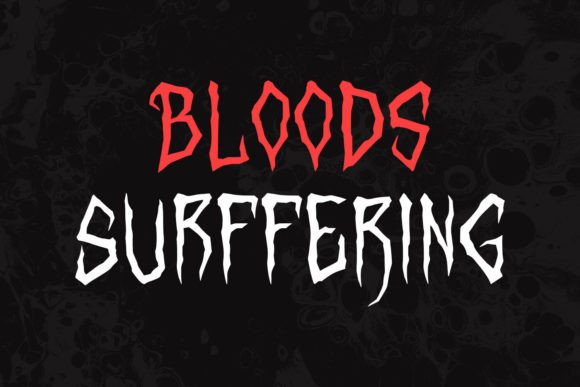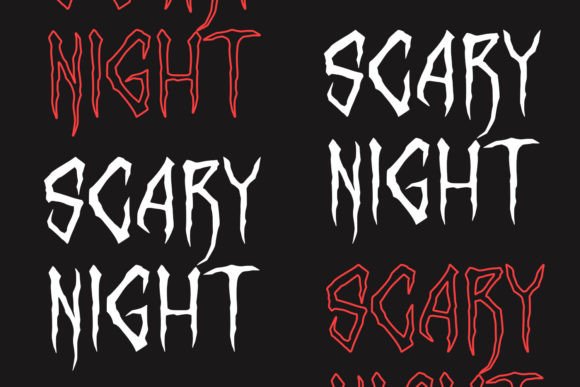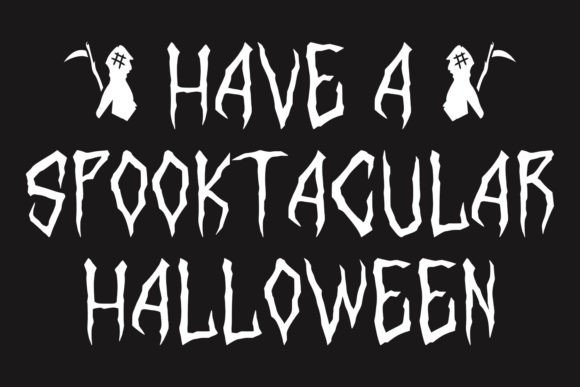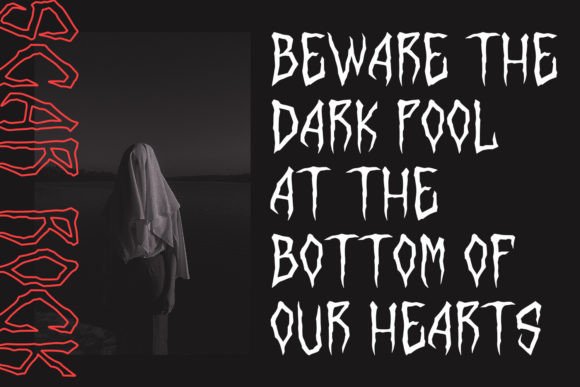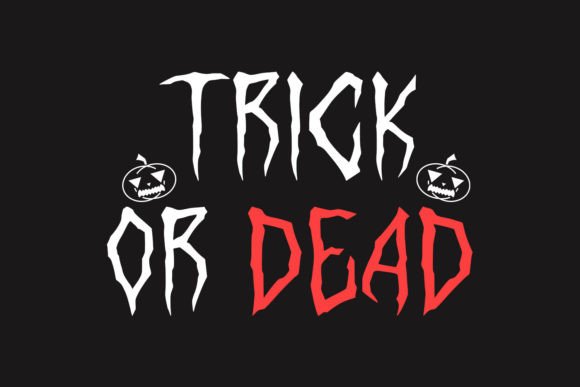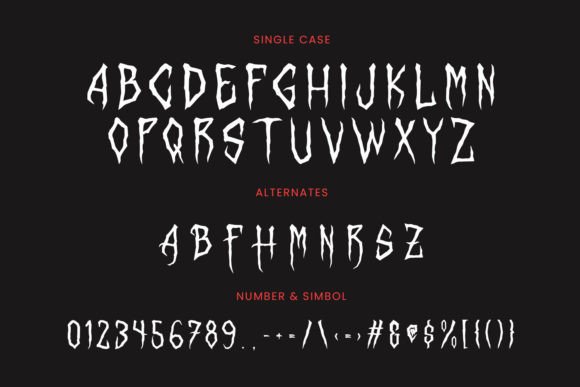
Introduction to Scar Rock Font
Remember that moment when you’re brainstorming ideas for a creative project and the perfect font just slips your mind? You envision a bold, eye-catching title, but the right font to bring it to life remains elusive. That’s where the Scar Rock Font comes in – a heavy-stroke, fun character display font that’s designed to make a statement.
With its unique ligatures and multilingual support for over 100 languages, Scar Rock Font is a valuable addition to any designer’s toolkit. Whether you’re working on a logo design, social media campaign, movie title, or book cover, this high-quality font is sure to elevate your creative work. And the best part? It’s available for free download, making it an accessible design resource for anyone looking to take their projects to the next level.
Whether you’re working on a short text or a long-form letter, Scar Rock Font’s versatility makes it an ideal choice for secondary text fonts with script or serif styles. With its transparent background and bold design, this font is sure to make your creative work stand out from the crowd.
Key Features of Scar Rock Font
- High-quality design resource ideal for creative projects and designs.
- Unique characteristics include a rugged, distressed texture and bold typography, perfect for adding a touch of edginess to designs.
Honest Review: Scar Rock Font
I recently stumbled upon the Scar Rock Font, and I must say it’s an impressive addition to any designer’s toolkit. This font is perfect for those working on creative projects that require a rugged, edgy vibe.
- High-quality design: The Scar Rock Font has a crisp, clean design that makes it perfect for use on a variety of materials, from print to digital.
- Transparent background: This feature is a game-changer for designers who want to use the font on transparent backgrounds or overlays.
- ⚠️ Limited font sizes: While the font looks great at larger sizes, it can appear pixelated at smaller sizes.
- ⚠️ Not ideal for body text: Due to its rugged design, the Scar Rock Font isn’t the best choice for body text, but it’s perfect for headlines and titles.
Overall, I’m impressed with the Scar Rock Font, and I think it’s a valuable resource for designers working on creative projects. While it has some limitations, its unique design and features make it a great addition to any design toolkit.
How to Use Scar Rock Font
The Scar Rock Font is a high-quality design resource that offers a unique and creative style. It’s perfect for designers who want to add an extra touch to their projects. With its transparent background, this font can be easily customized to fit any design.
Tips for Getting the Most Out of Scar Rock Font
Some tips for getting the most out of the Scar Rock Font include using it on a transparent background, experimenting with different font sizes and colors, and combining it with other design elements to create a unique look.
The Scar Rock Font is perfect for creative projects such as logo design, branding, and advertising. It’s also great for use in digital media such as social media graphics and websites.
Alternatives to Scar Rock Font
1. Rockwell Font
The Rockwell Font is a classic serif font that is often used in design projects requiring a formal and professional look. It’s suitable for creative projects that demand a touch of sophistication, such as business cards, brochures, and corporate reports.
Compared to Scar Rock Font, Rockwell has a more traditional feel and is ideal for projects where a high-quality, serif font is required. While Scar Rock Font has a rugged, edgy feel, Rockwell is more polished and refined.